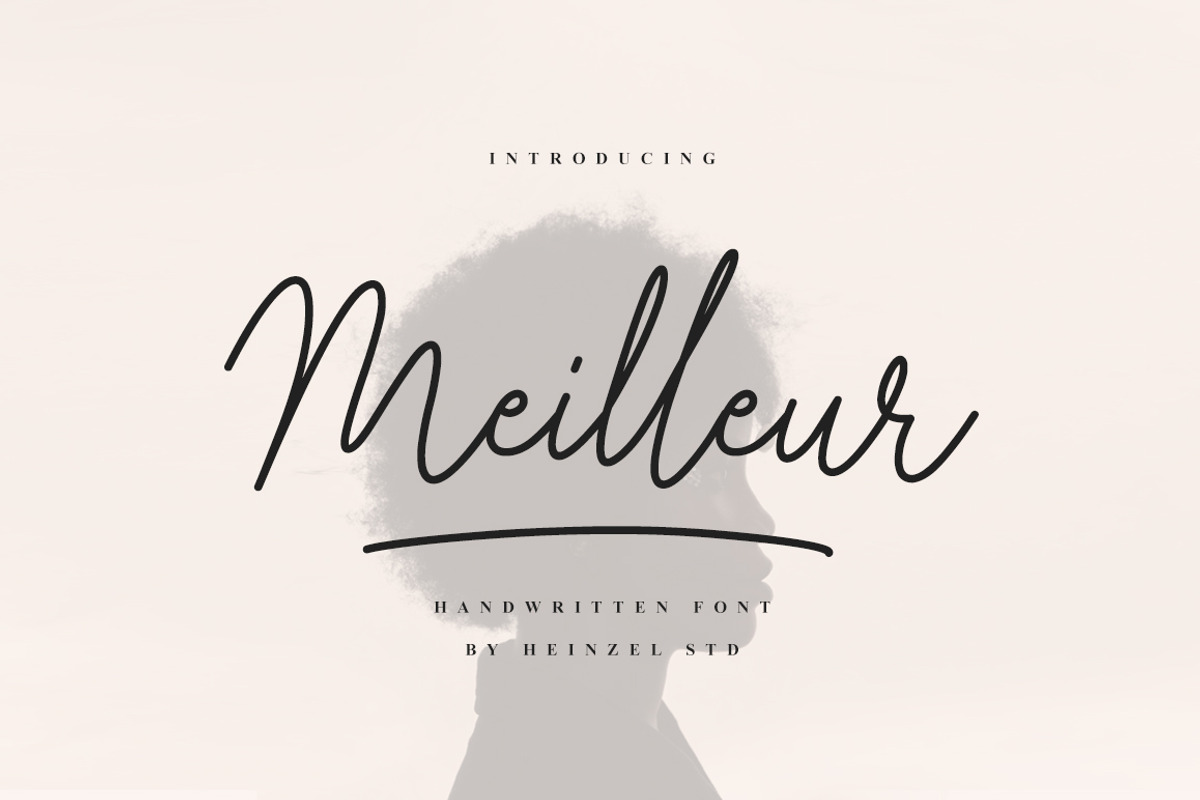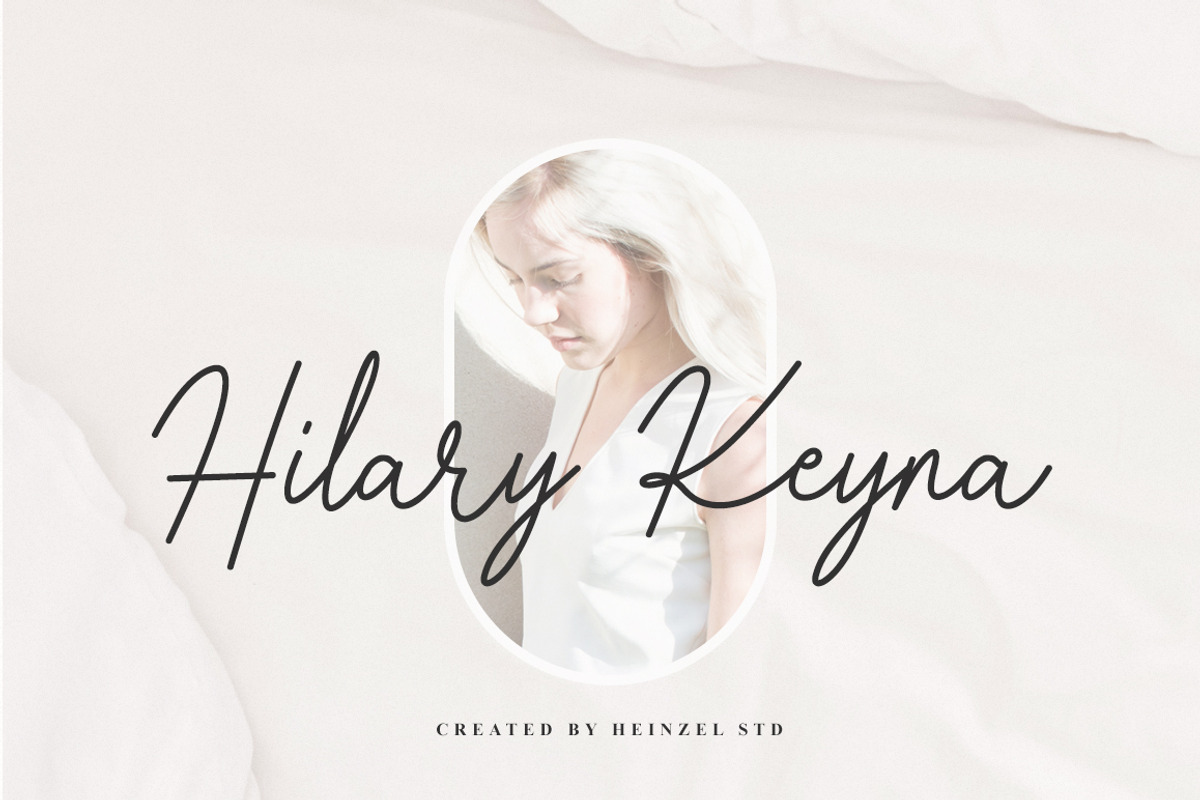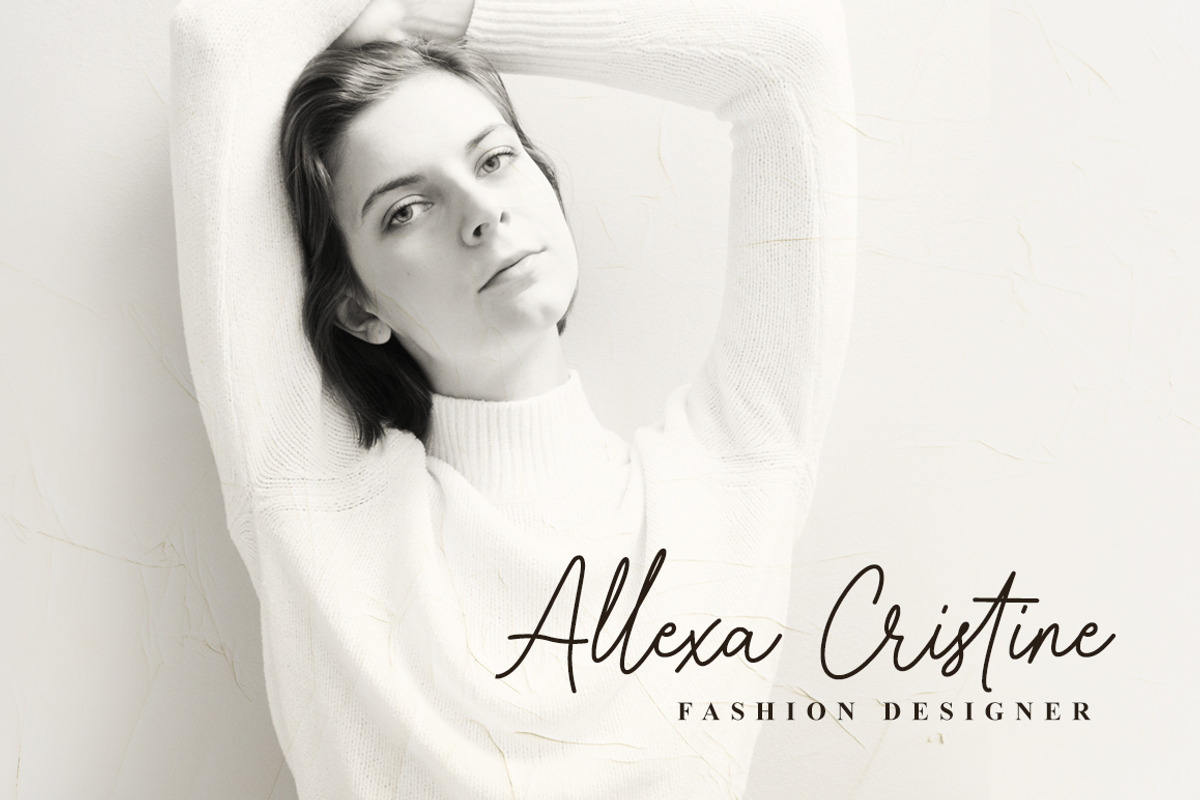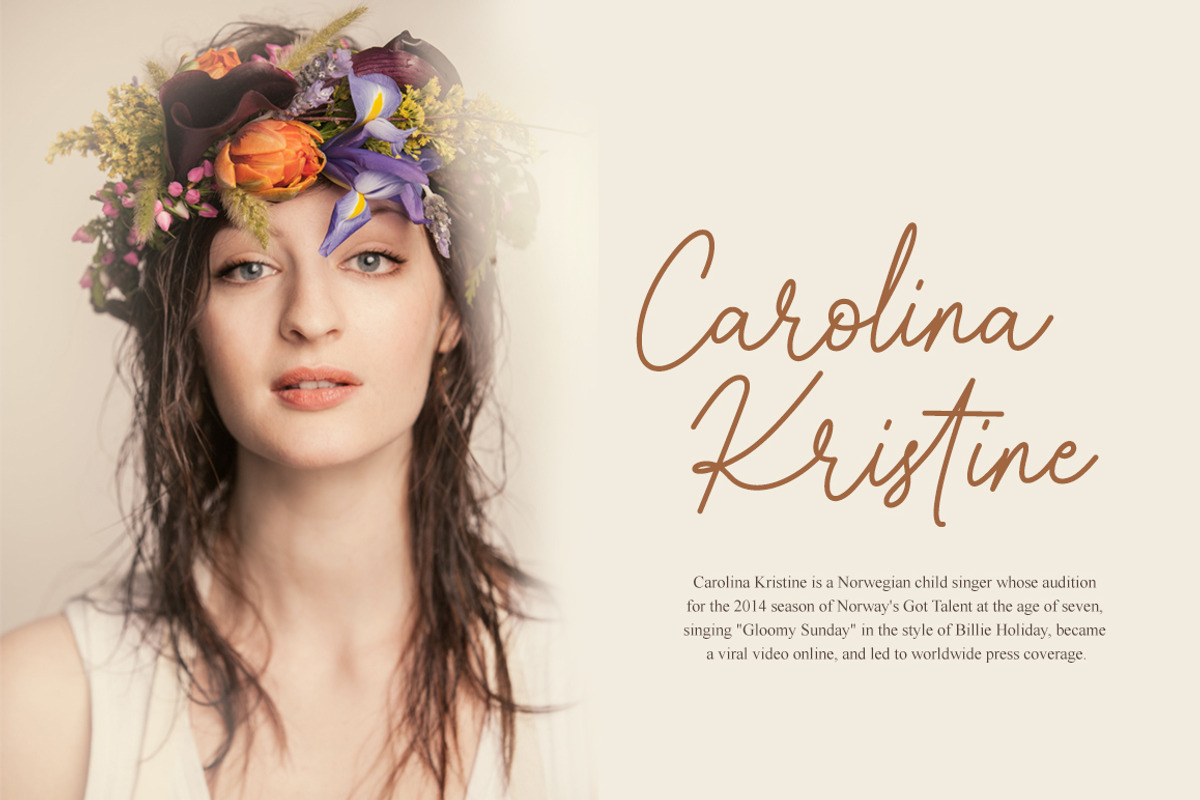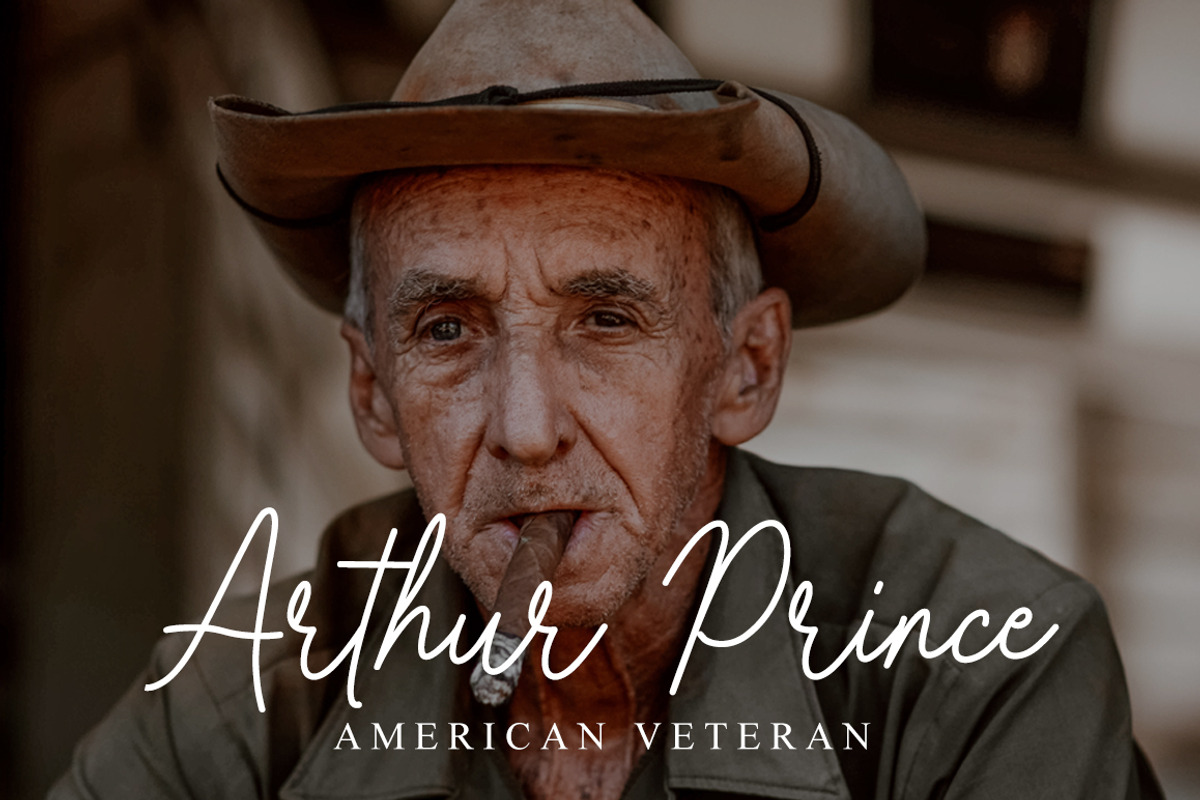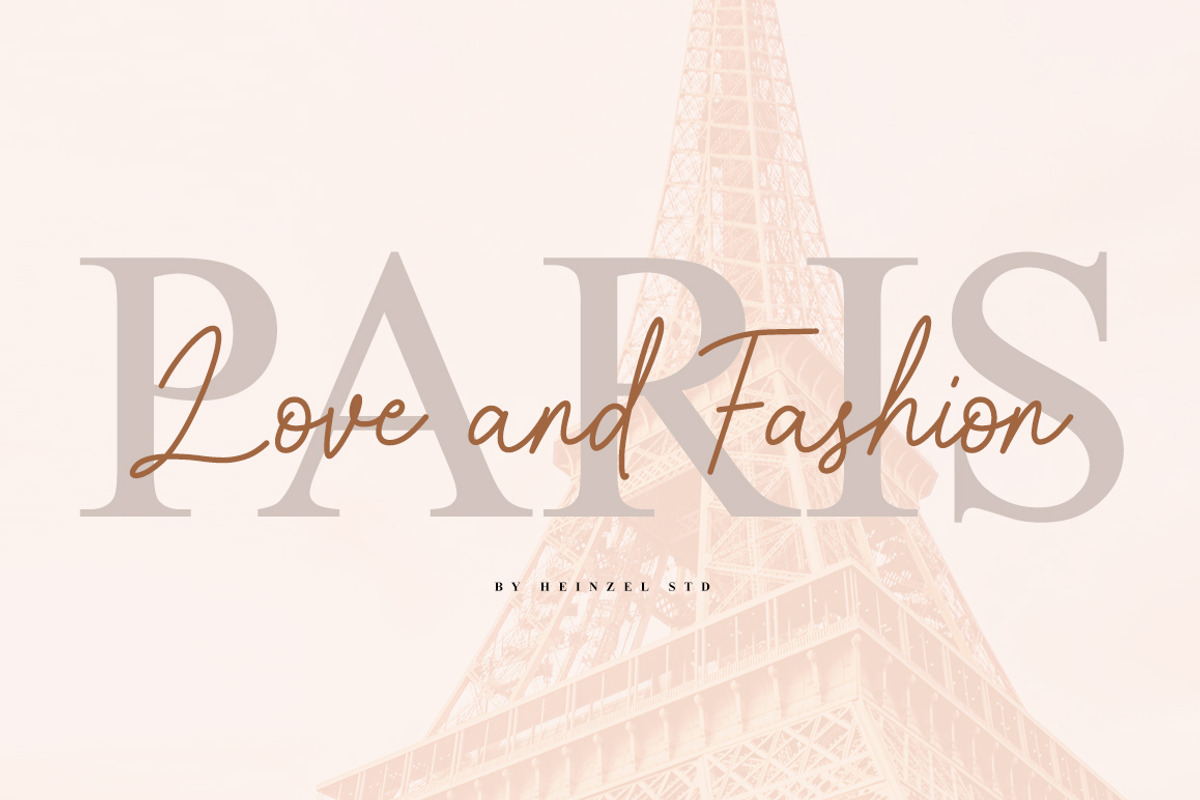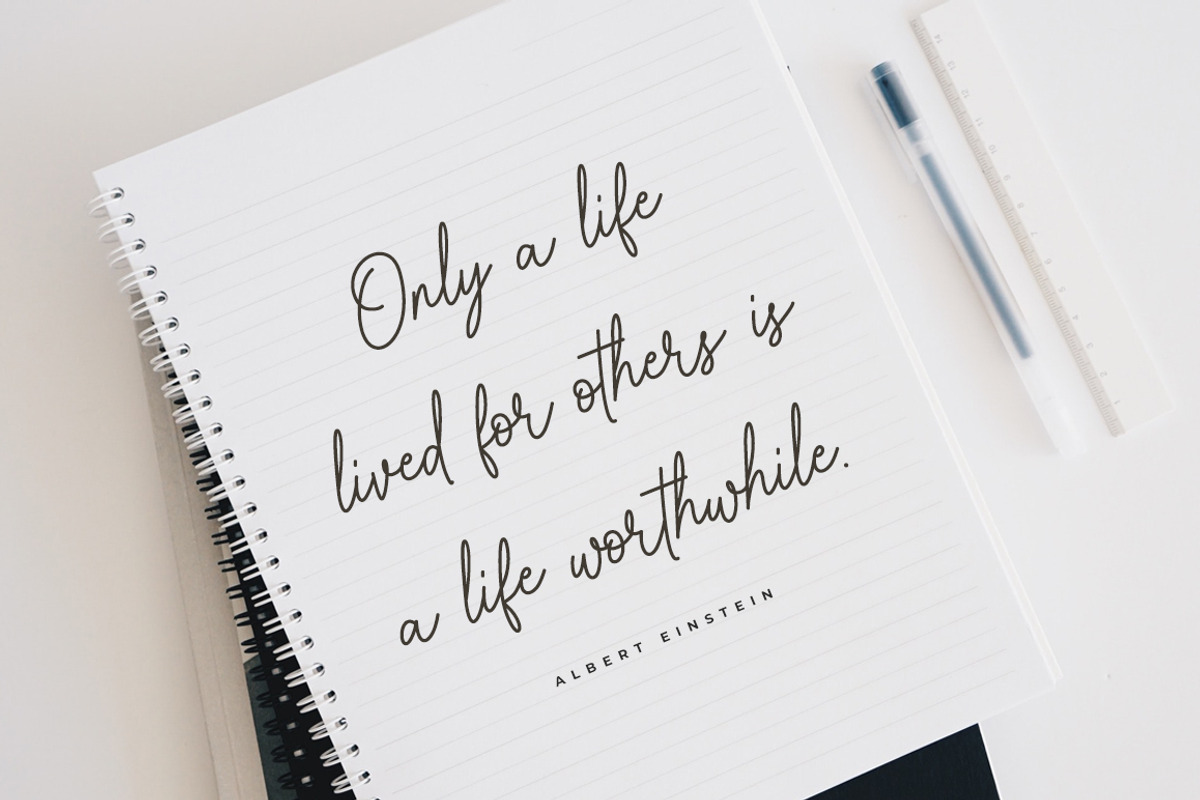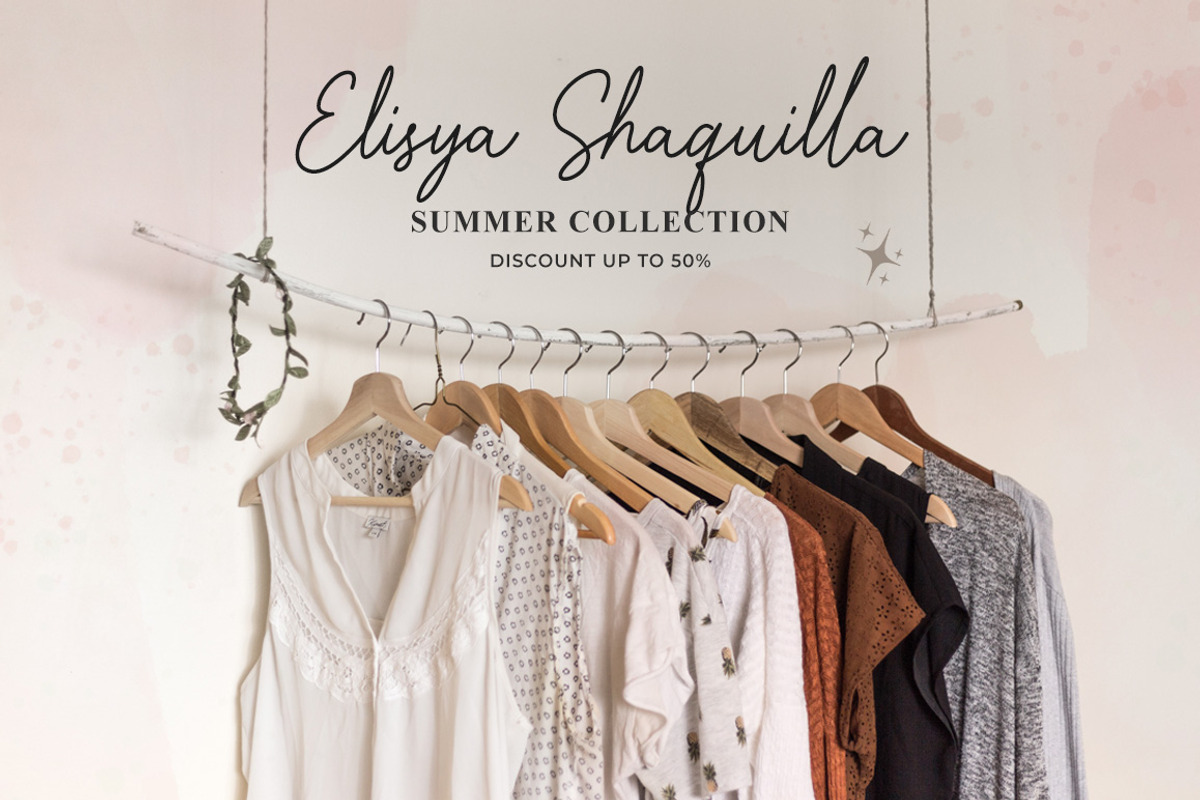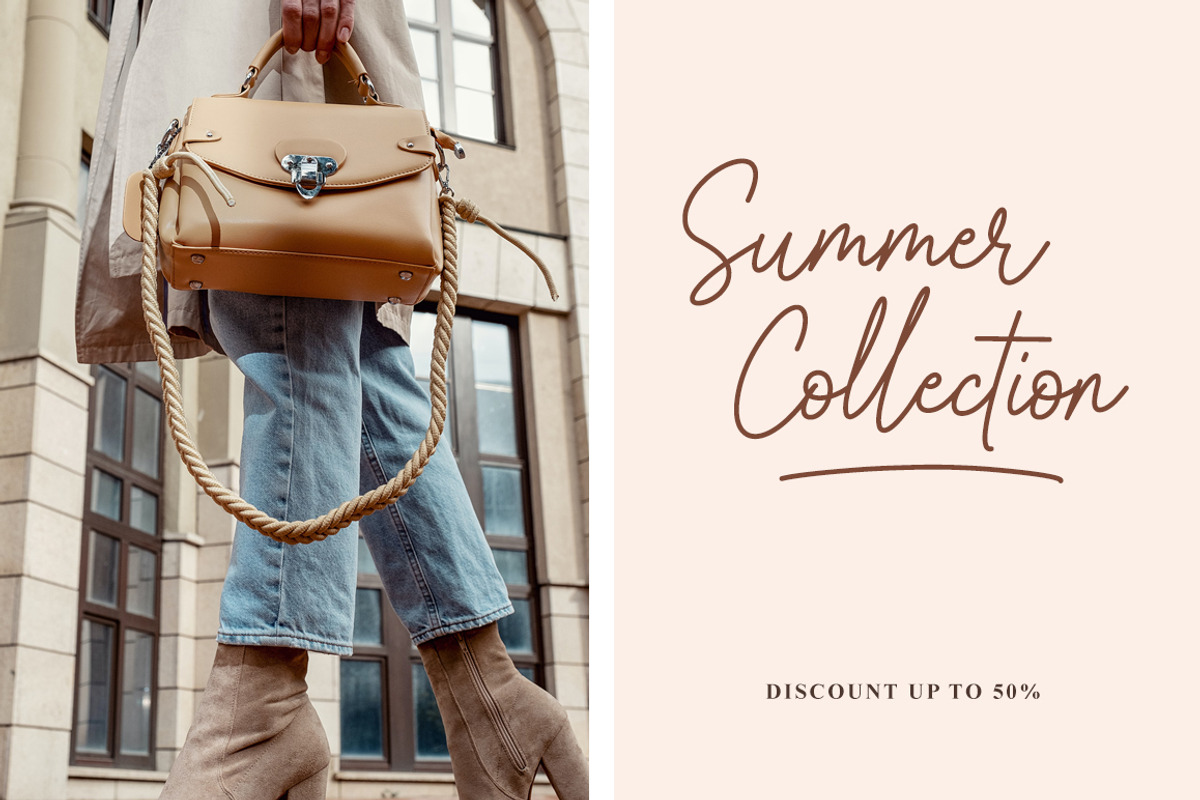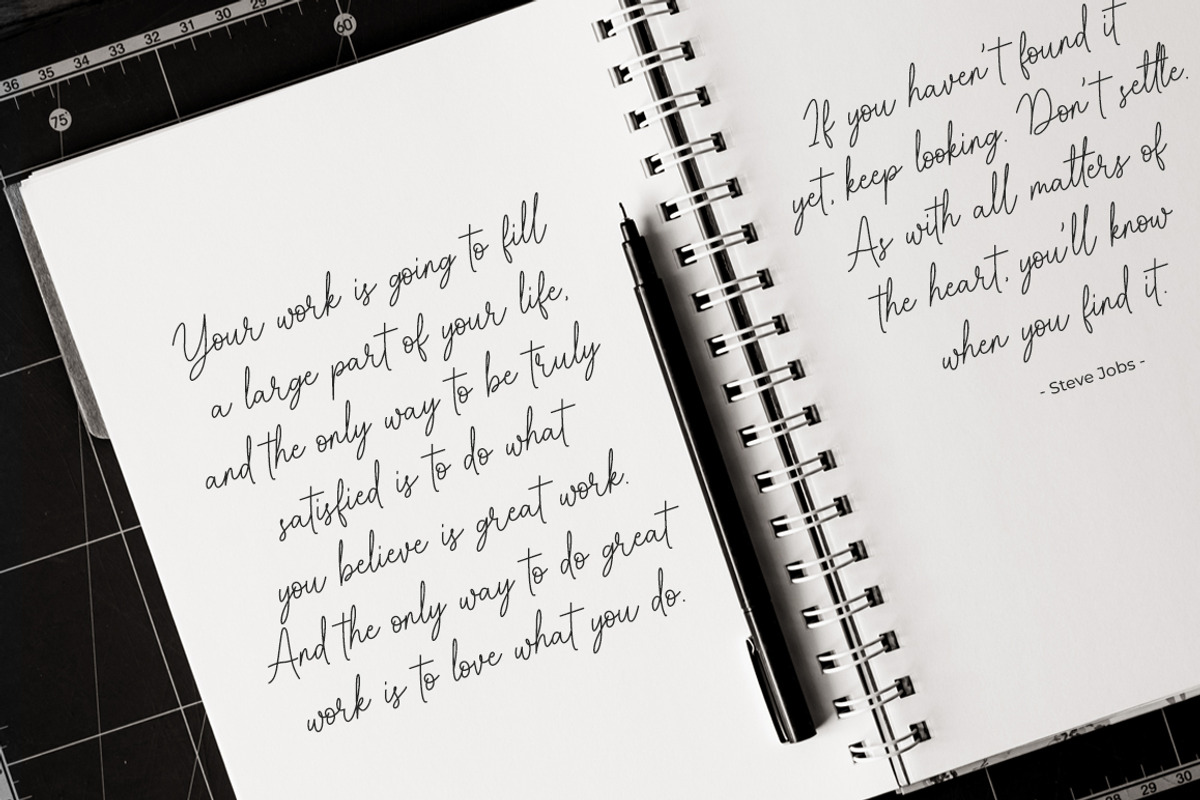
Meilleur - Handwritten Font
Meilleur is a flowing handwritten font, described by an elegant touch, perfect for your favorite projects. It looks stunning on wedding invitations, thank you cards, quotes, greeting cards, logos, business cards and every other design which needs a handwritten touch. Fall in love with its incredibly distinct and timeless style and use it to create spectacular designs!
Meilleur Features :
- Multilingual Support : ÁÂÃÄÅÆÇÈÉÊËÌÍÎÏÐÑÒÓÔÕÖØÙÚÛÜÝÞß àáâãäåæçèéêëìíîïðñòóôõöøùúûüýÿþ
This character set supports the following 21 languages: Afrikaans, Basque, Breton, Catalan, Danish, Dutch, English, Finnish, French, Gaelic (Irish, Scots), German, Icelandic, Indonesian, Irish, Italian, Norwegian, Portuguese, Saami (Southern), Spanish, Swahili, Swedish.